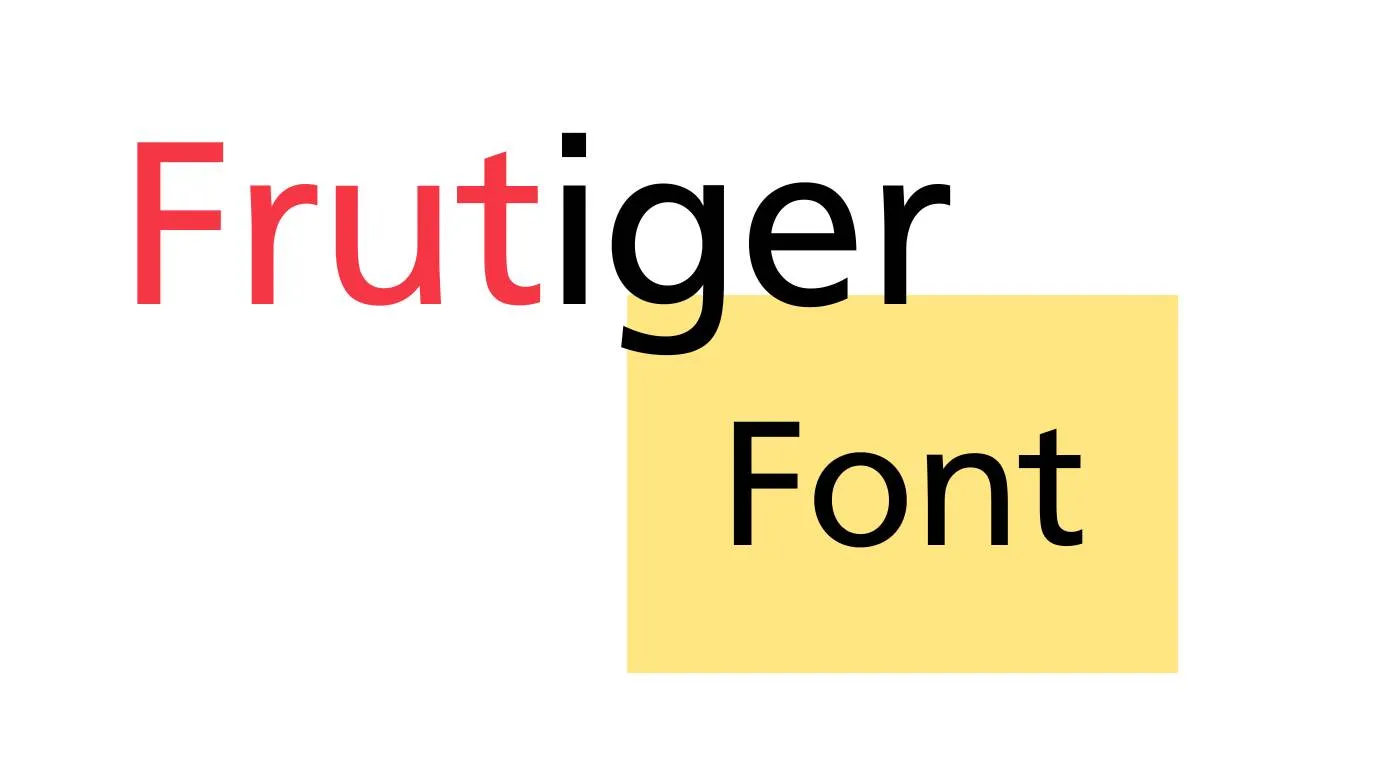
Frutiger font family is a humanist sans serif typeface that was designed by a Swiss typographer Adrian Frutiger. In 1968 this font was designed for the signage system of Charles De Gaulle Airport Paris.
The style of this typeface is quite similar to the Montserrat Font. This is also highly used on many notable websites and many other Organizations adopted this font for their regular designs.